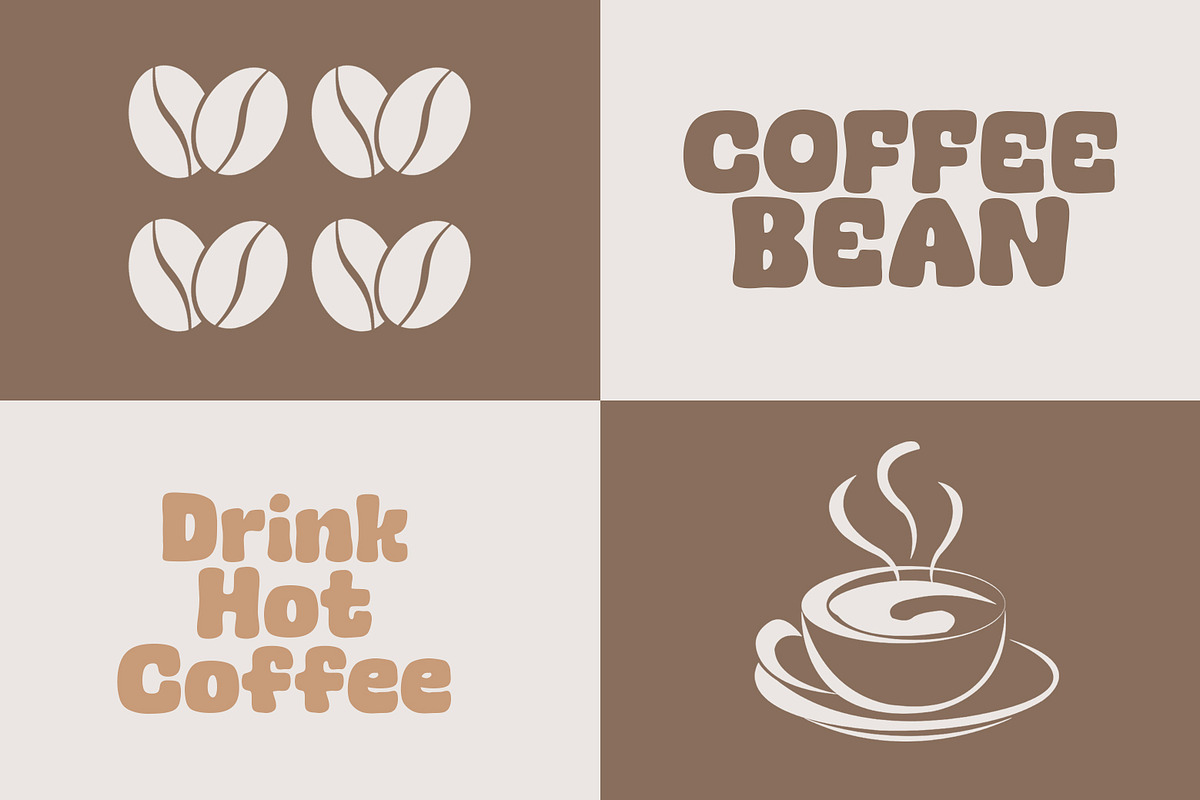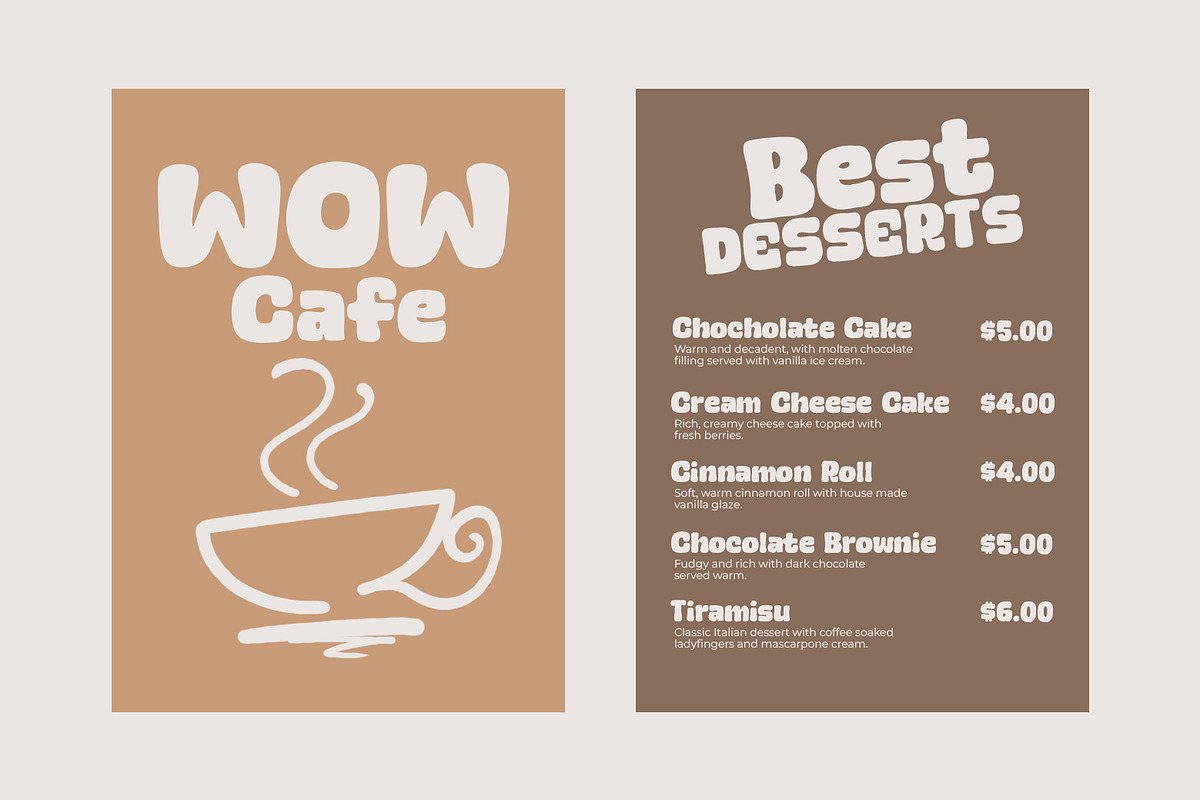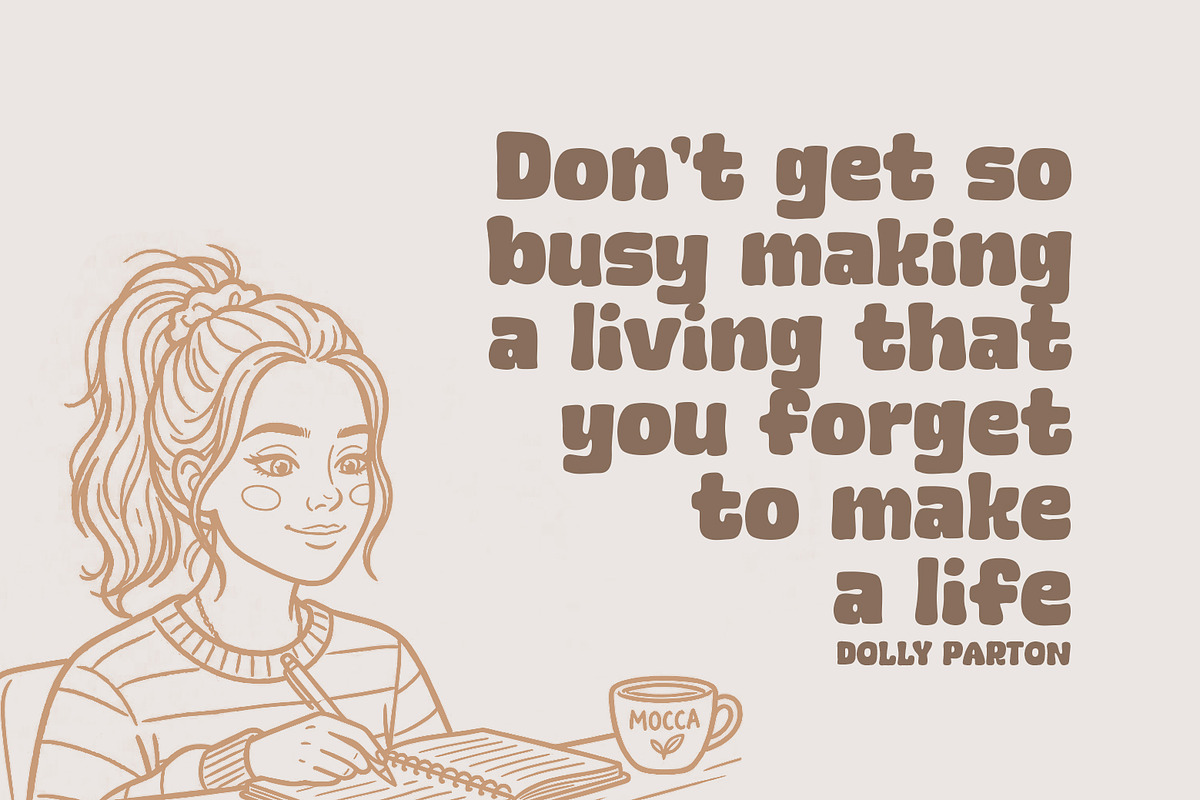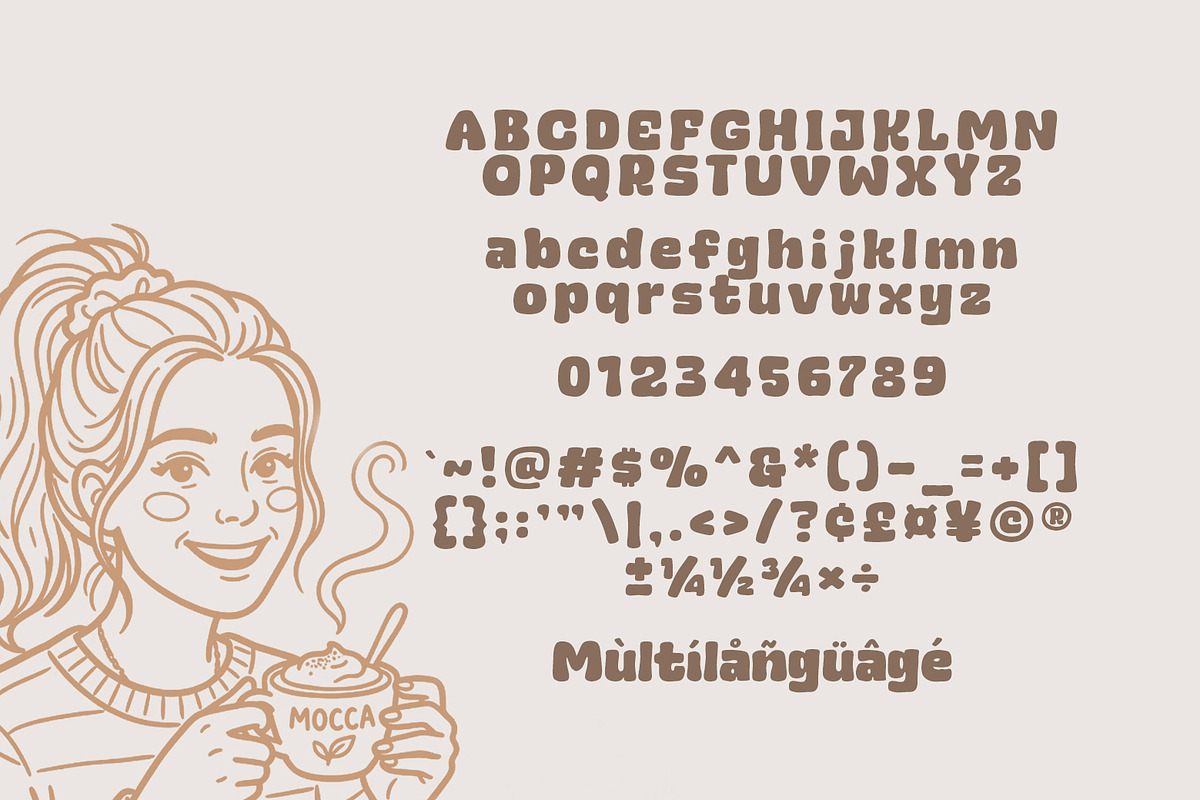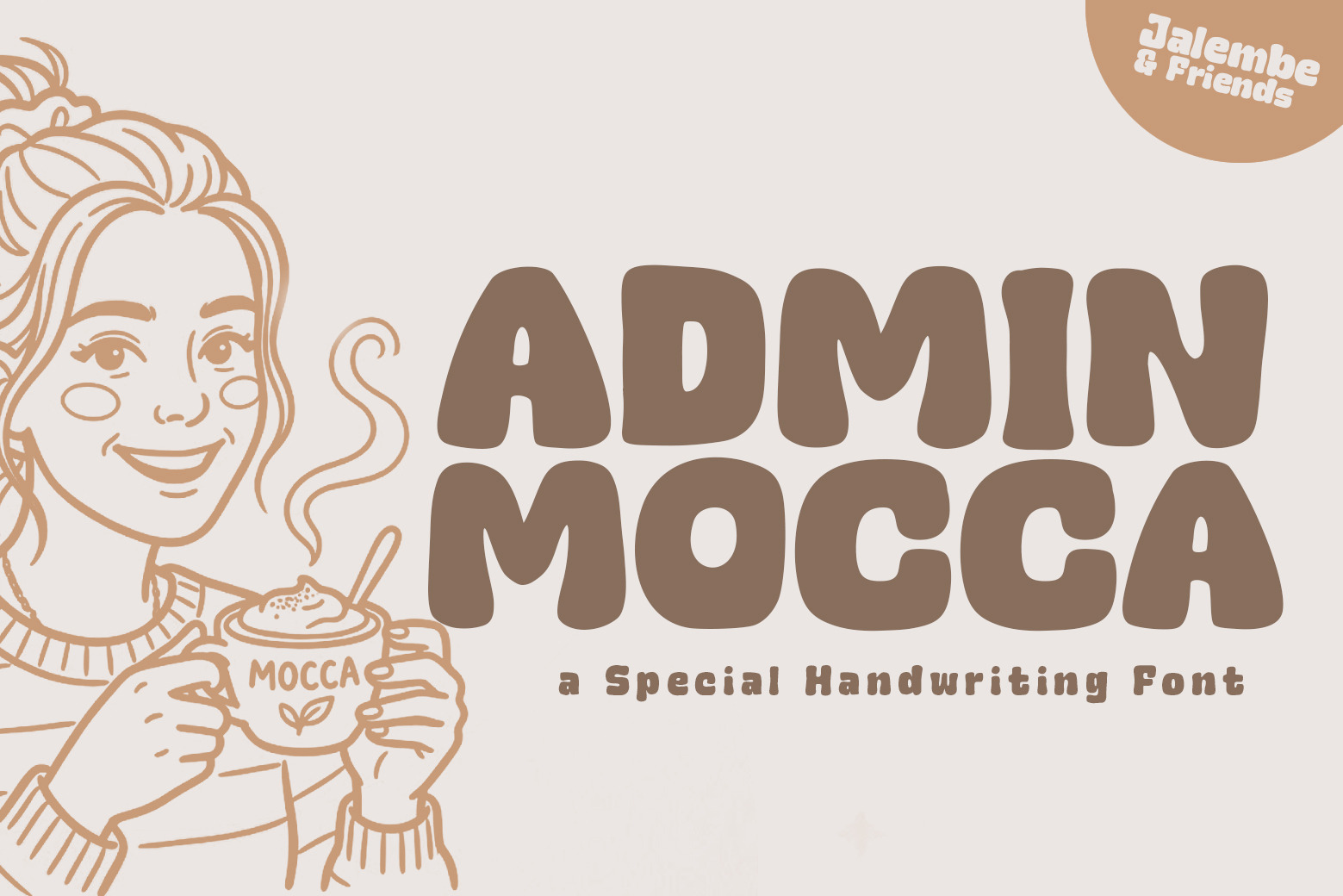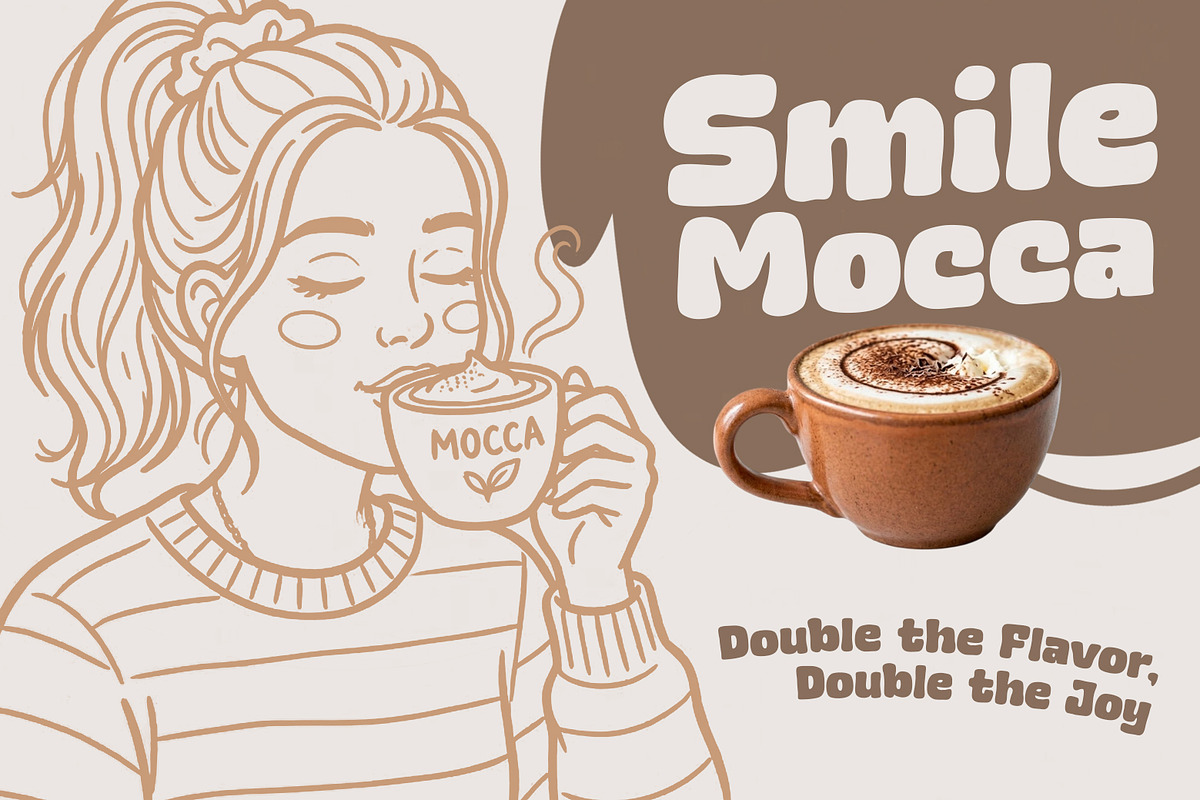
Admin Mocca - Display Food Font
Introducing, Admin Mocca font a fun display typeface with cheerful theme for your fun project. Admin Mocca font suitable for logo, branding, greeting card, poster and any design that you create.